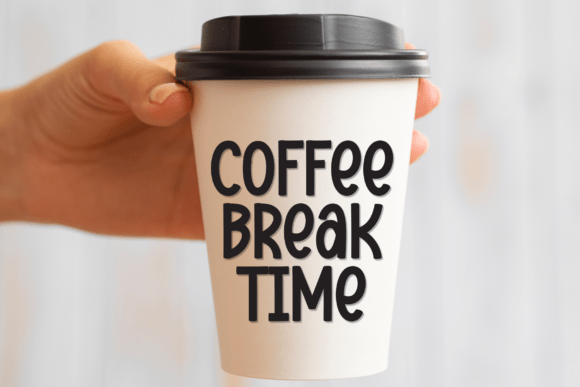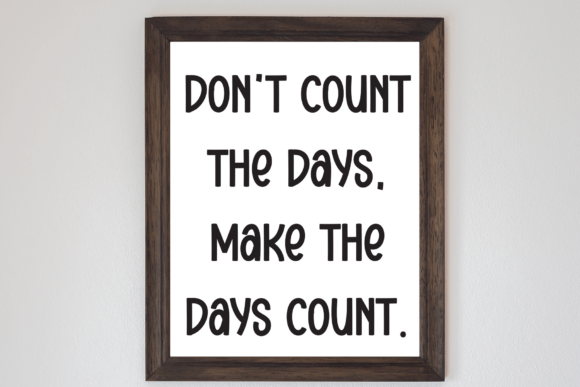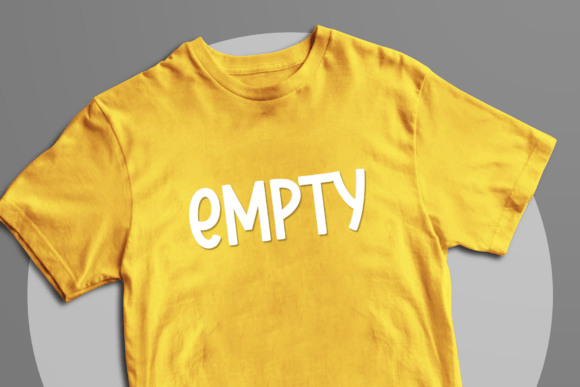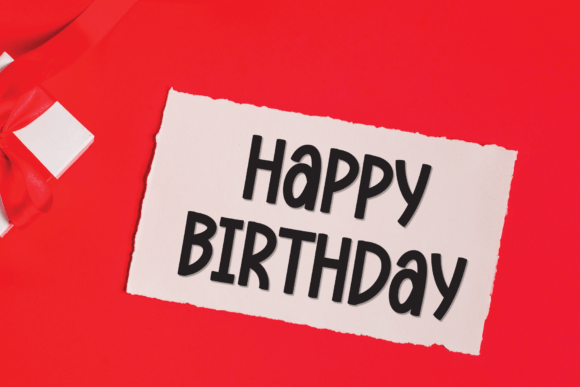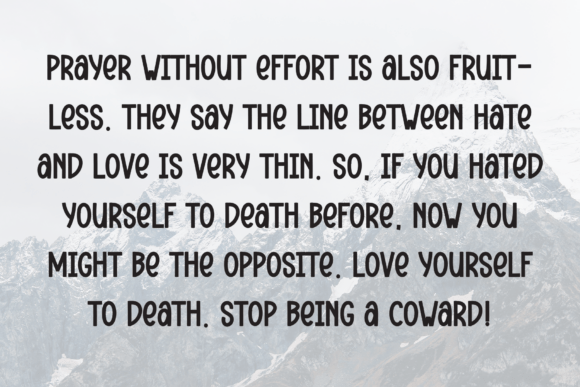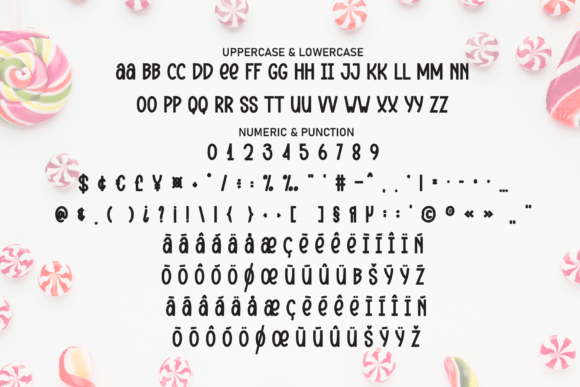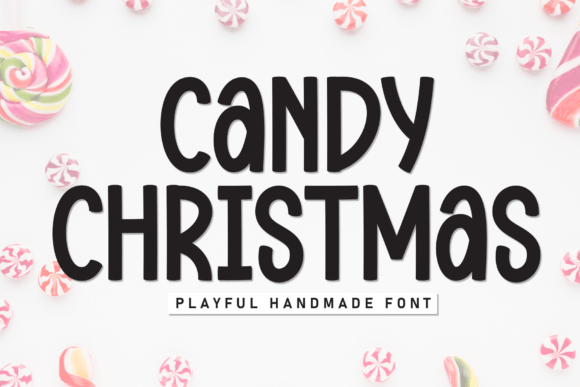
Candy Christmas Font: The Perfect Blend of Modern Simplicity and Playful Charm
Are you looking for a font that can add a fresh and friendly touch to your designs? Look no further than the Candy Christmas Font. This casual display font is perfect for designers and crafters who want to create visually appealing projects that exude a sense of modern simplicity and playfulness. In this article, we’ll take a closer look at the Candy Christmas Font, its features, and how it can elevate your designs.
What is Candy Christmas Font?
Candy Christmas Font is a carefully crafted display font that combines modern simplicity with a playful, approachable vibe. Its clean shapes, soft edges, and well-balanced letterforms make it an ideal choice for a wide range of design projects, from posters and branding to packaging and social media graphics. This font is perfect for designers who want to create projects that are both stylish and easy to read.
Key Features of Candy Christmas Font
- Clean Shapes: The Candy Christmas Font features clean shapes that give it a modern and sleek look. The font’s shapes are carefully designed to be simple, yet distinctive, making it easy to read and recognize.
- Soft Edges: The soft edges of the font add a touch of playfulness and approachability, making it perfect for designs that require a friendly and inviting tone.
- Well-Balanced Letterforms: The font’s letterforms are carefully balanced to ensure that each character is easy to read and visually appealing. This balance also helps to create a sense of harmony and consistency in your designs.
- Versatile Character: The Candy Christmas Font has a versatile character that makes it suitable for a wide range of design projects. Whether you’re creating a poster, a social media graphic, or a packaging design, this font can help you achieve your goals.
- Eye-Catching Appeal: The font’s unique combination of clean shapes, soft edges, and well-balanced letterforms gives it an eye-catching appeal that can help your designs stand out from the crowd.
What Can You Use Candy Christmas Font For?
The Candy Christmas Font is a versatile font that can be used for a wide range of design projects, including:
- Posters: Create eye-catching posters for events, promotions, or announcements using the Candy Christmas Font.
- Branding: Use the font to create a unique and memorable brand identity that reflects your company’s values and personality.
- Packaging: Add a touch of personality to your packaging designs with the Candy Christmas Font.
- Social Media Graphics: Create engaging social media graphics that grab attention and convey your message effectively.
Why Choose Candy Christmas Font?
There are many reasons why you should choose the Candy Christmas Font for your design projects. Here are a few:
- Readability: The font is designed to be easy to read, making it perfect for designs that require a clear and concise message.
- Personality: The Candy Christmas Font has a unique personality that can help your designs stand out from the crowd.
- Versatility: The font can be used for a wide range of design projects, making it a great addition to your font library.
- Modern Simplicity: The font’s modern simplicity makes it perfect for designs that require a clean and sleek look.
In conclusion, the Candy Christmas Font is a versatile and stylish font that can add a fresh and friendly touch to your designs. Its unique combination of clean shapes, soft edges, and well-balanced letterforms makes it perfect for a wide range of design projects, from posters and branding to packaging and social media graphics. With its readability, personality, and versatility, the Candy Christmas Font is a great choice for designers and crafters who want to create visually appealing projects that stand out from the crowd.